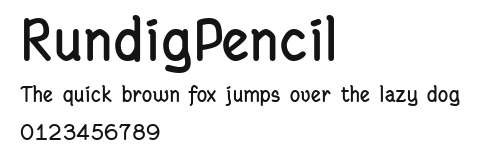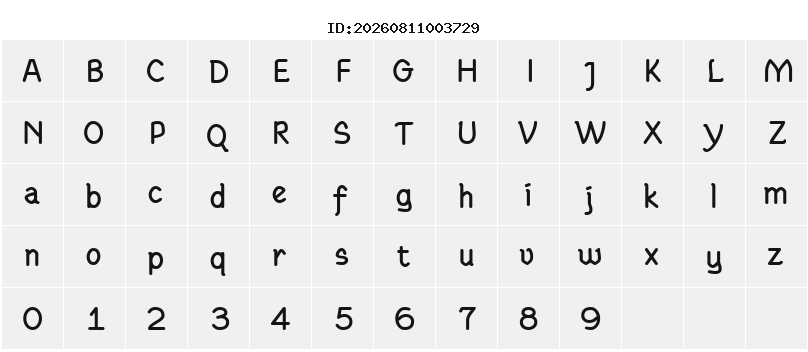
• Font Name: RundigPencil
About RundigPencil.ttf
RundigPencil.ttf is a modern, elegant sans-serif font designed for ultimate readability and visual harmony. Perfect for branding, headlines, web design, and print materials.